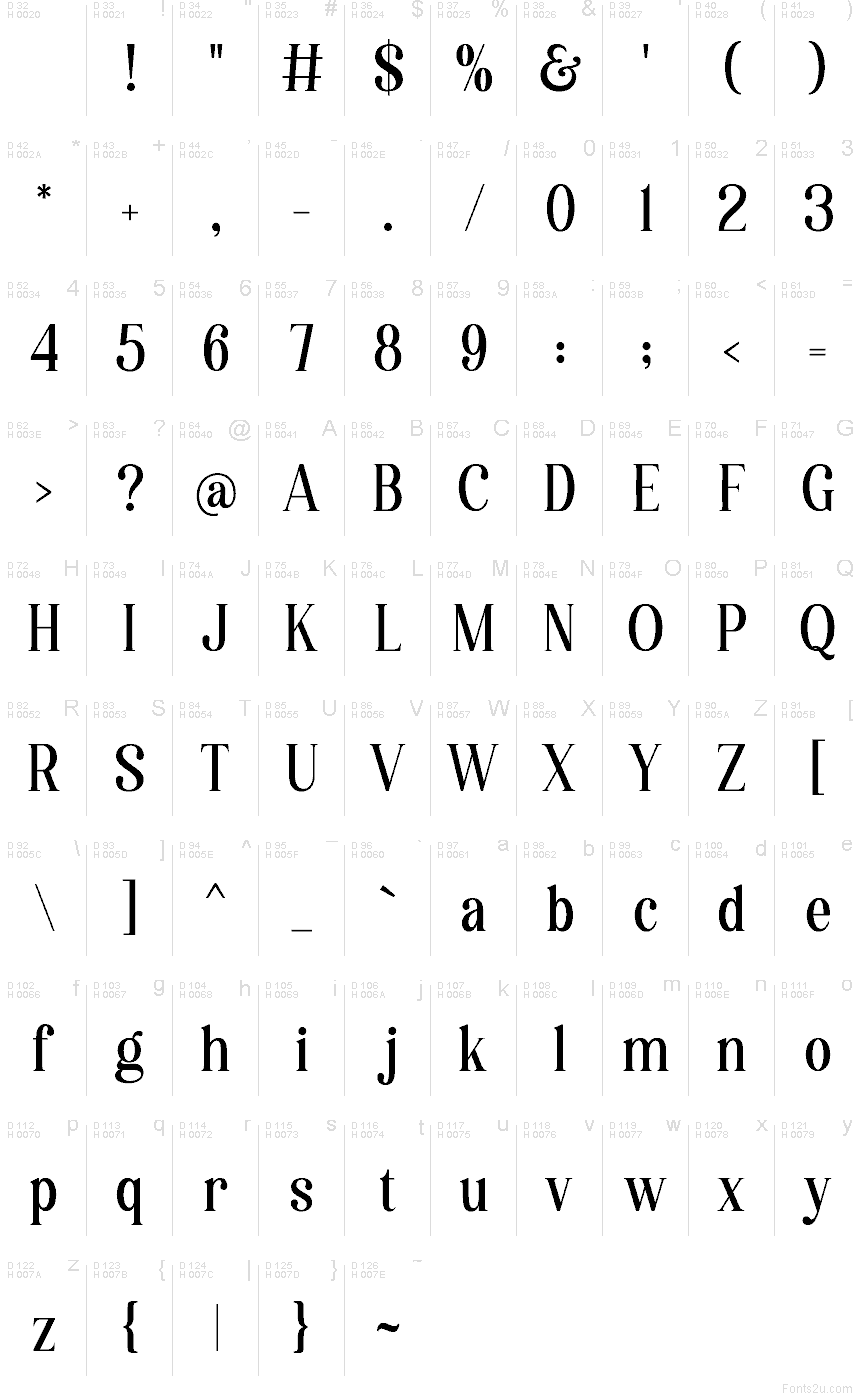
Destiny Gorgeous
Destiny Gorgeous font by Burhan Afif of HansCo Studio is a free serif font with a runway-sleek silhouette and just enough softness to feel romantic, not stiff. Its tall proportions and crisp strokes give words a confident rhythm, while the rounded curves add a hint of charm—like ink pressed cleanly into thick cotton paper.
Using Destiny Gorgeous works beautifully for fashion branding, boutique logos, editorial headlines, wedding invitations, perfume packaging, book covers, and Instagram quote graphics. Set it a touch larger with generous tracking to let the elegance breathe, then pair it with a calm sans like Inter or Helvetica for captions and details—this free font holds the spotlight without shouting.